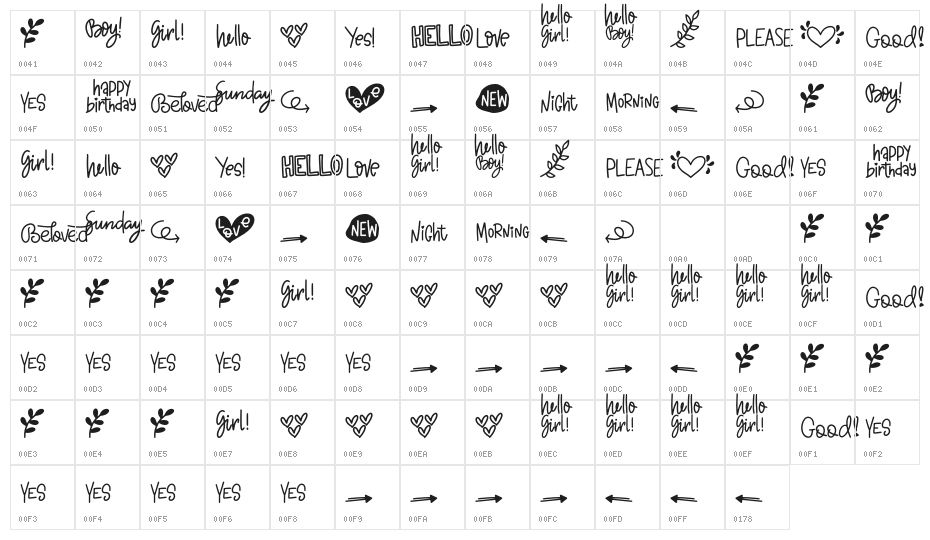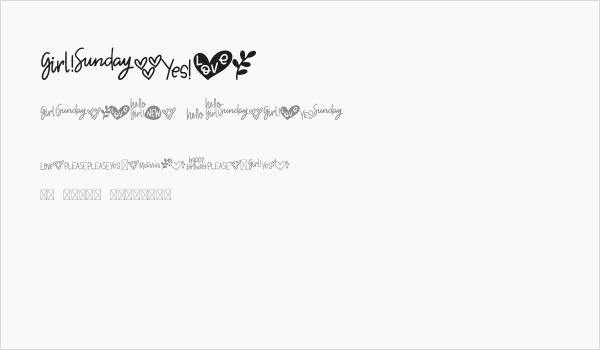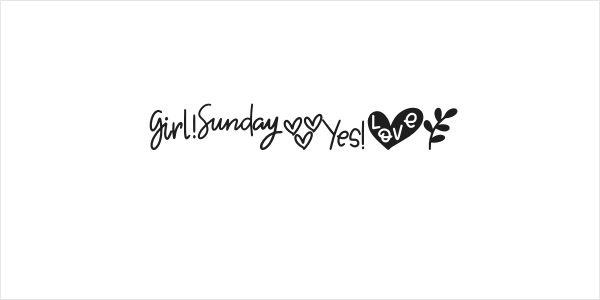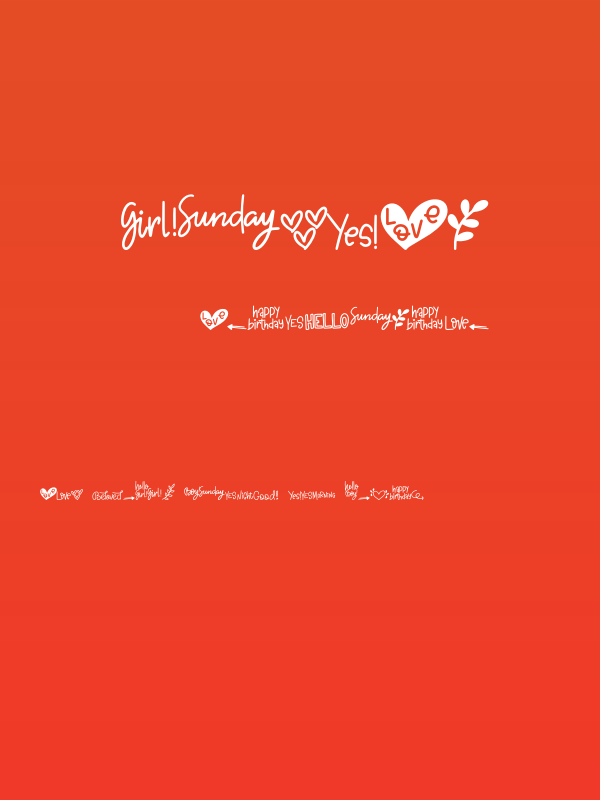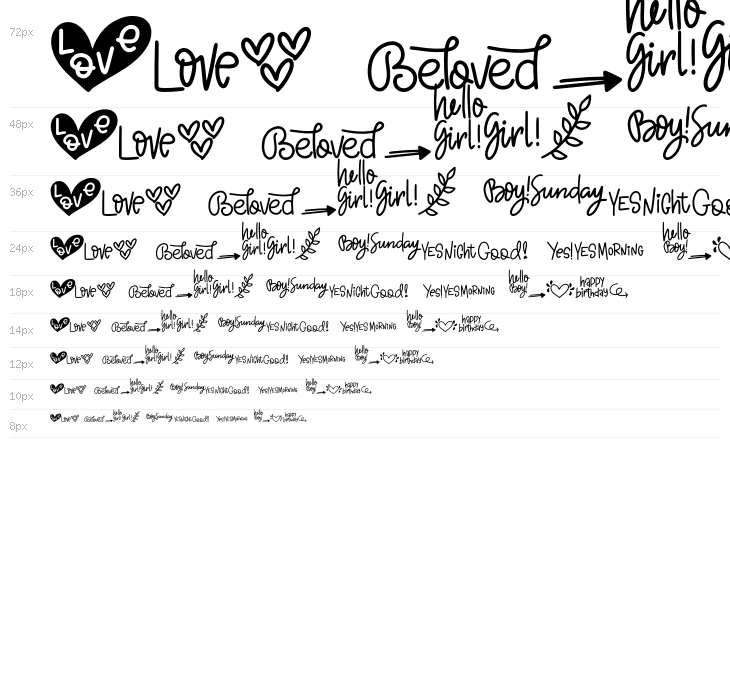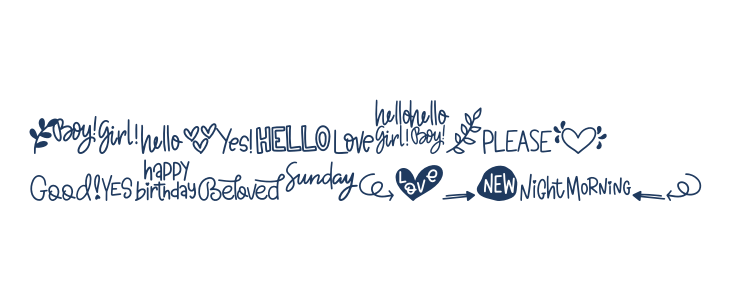
Crefta Font
Crefta Description
This playful and whimsical font features a mix of handwritten and decorative elements, creating a lively and engaging appearance. The letters are characterized by their irregular shapes and varying stroke widths, giving the font a dynamic and informal feel. The inclusion of hearts and arrows adds a touch of charm and creativity, making it suitable for designs that aim to convey a sense of fun and spontaneity. The font maintains a casual and friendly tone, perfect for projects that require a personal touch. Its unique style makes it stand out, while the clear legibility ensures it remains functional.
| Proposed Projects | Ideal for greeting cards, playful branding, children's books, and creative social media graphics. |